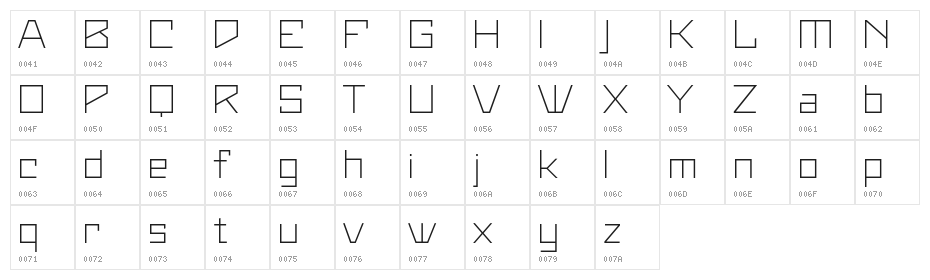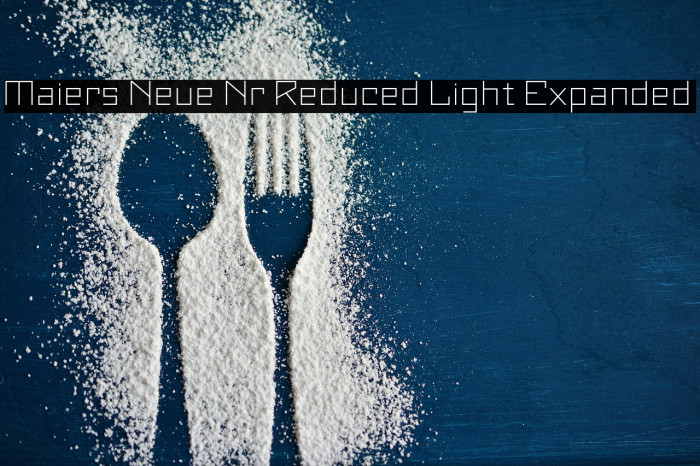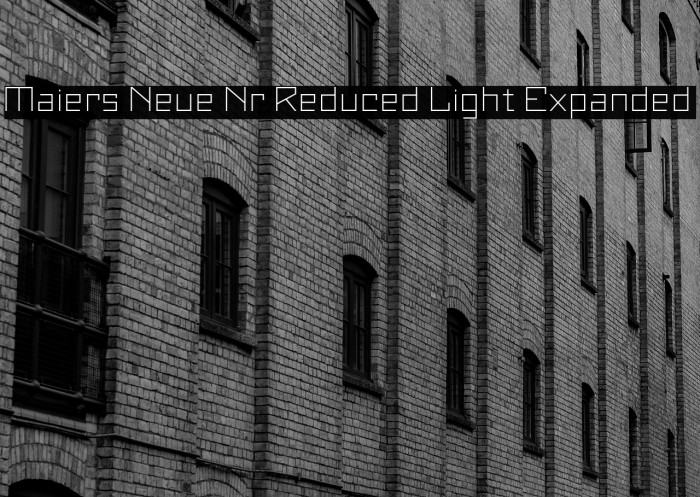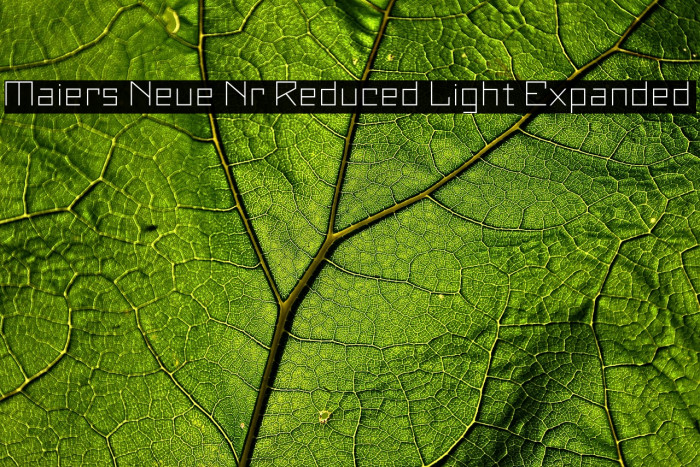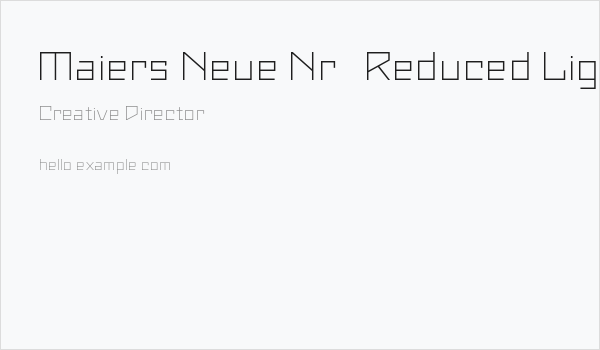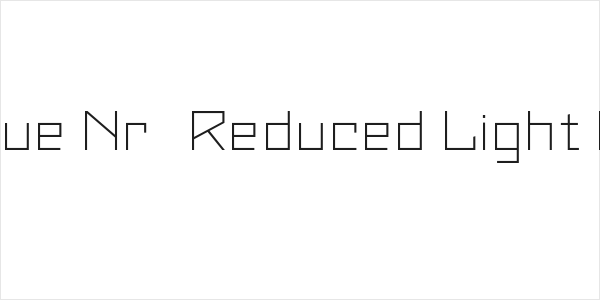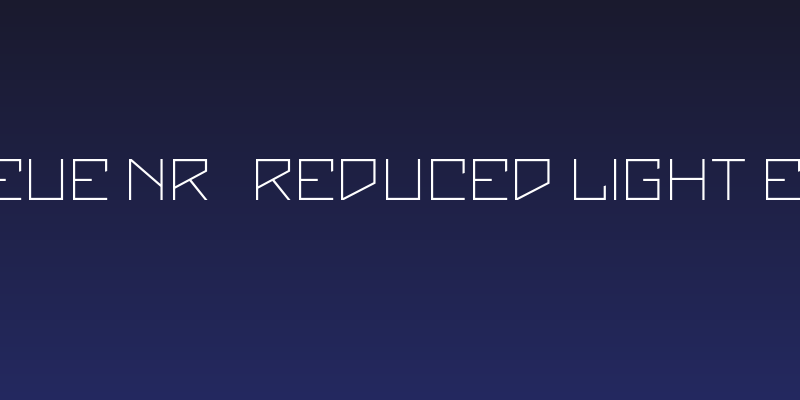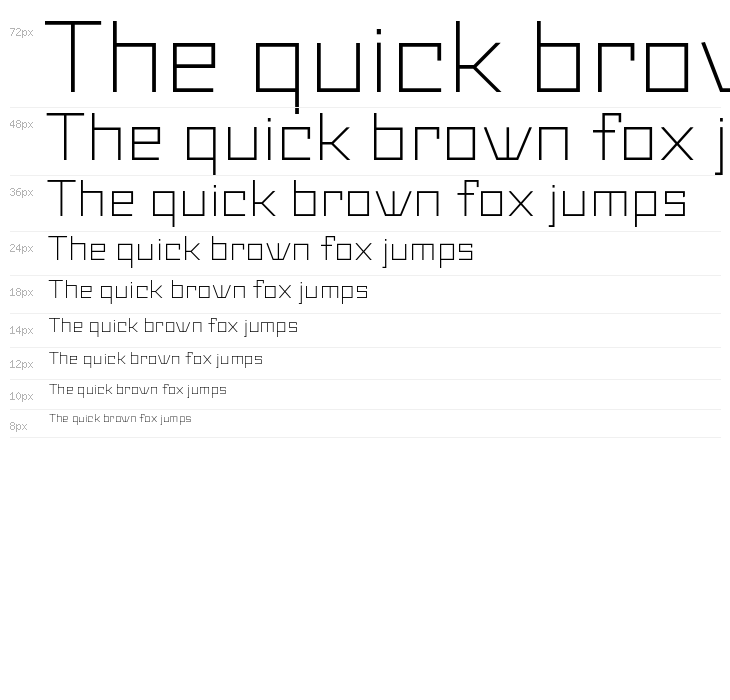
Maiers Neue Nr.8 Reduced Light Expanded Font
Maiers Neue Nr.8 Reduced Light Expanded Description
This font features a geometric and minimalist design with a modern aesthetic. The characters are constructed with straight lines and sharp angles, giving it a technical and precise appearance. The uppercase letters are uniform in height, while the lowercase letters maintain a consistent baseline with slight variations in height for certain characters like 'b', 'd', and 'h'. The font has a light weight, contributing to its airy and open feel. The expanded width of the characters enhances readability and gives a spacious look. The overall style is clean and contemporary, suitable for projects that require a futuristic or technical vibe.
Proposed ProjectsIdeal for technology branding, modern web design, architectural presentations, and minimalist posters.